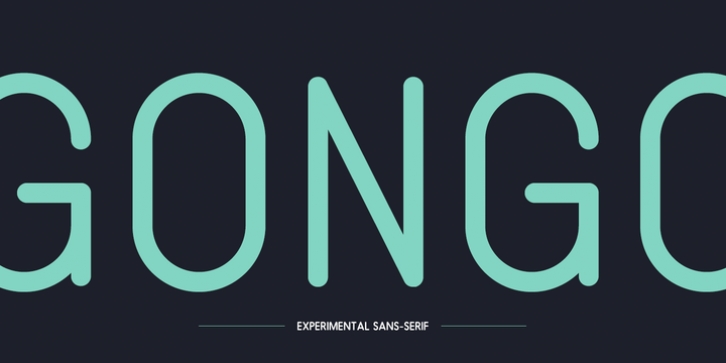
Gongo is a brand new experimental sans-serif. With rounded edges and alternate uppercase forms it’s the perfect display font for a wide variety of uses. Gongo is a very clean modern typeface with subtle yet unforgettable features, both soft and strong at the same time.